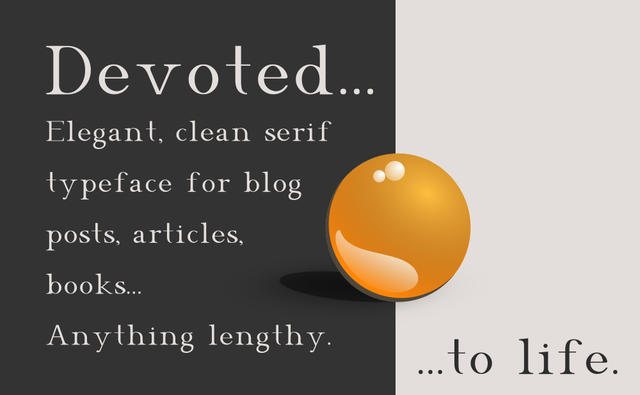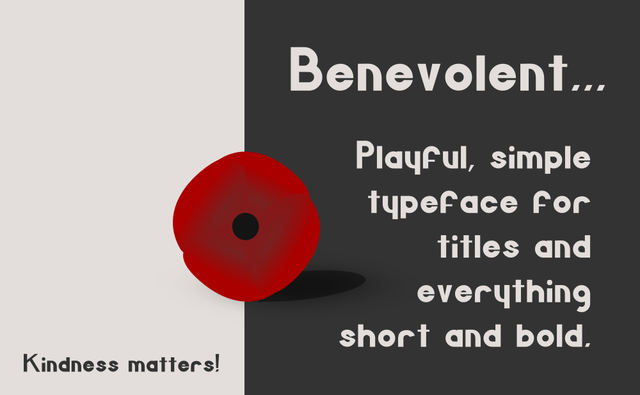
Today, I share with you this infographic I made for the eco+ project. I hope it explains the concept simple enough for anyone to grasp. In the next week, I will be writing longer thoughts and articles.
The STEEM interface
The first subproject is an interactive interface for the STEEM blockchain. It serves as an ecological encyclopedia. It is an organized block explorer with high-quality posts.
It's topic scope - permaculture, veganism, sociocracy.
It's goal is to gather enough people to start a small community that will use the eco+ app later on. Another one is to pile up quality content about permaculture, veganism and sociocracy.
I estimate it's completion around mid-2018.
You will be able to contribute, but I cannot make any promises for eco+ coin drops to the contributors. That is why the first stages will use the STEEM blockchain. The authors can receive some form of monetization for their work from the start.
I will be writing more about the STEEM interface once I define the eco+ platform and coin distribution.
I want to show you the first font style I came up with for the project. I present you - Benevolent - for titles, subtitles and other text that needs to stand out. The idea is to create a playful font that is readable from far away. A complement to the interactive nature of the app.
The other font I made, Devoted, is for blog post text, any longer pieces of text that the Benevolent font isn't for. It's a book style font intended to be readable even when tiny. This needs more work, but the base is here: